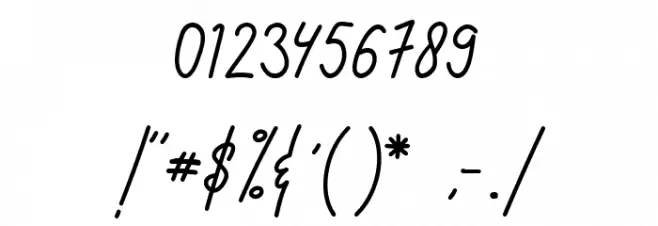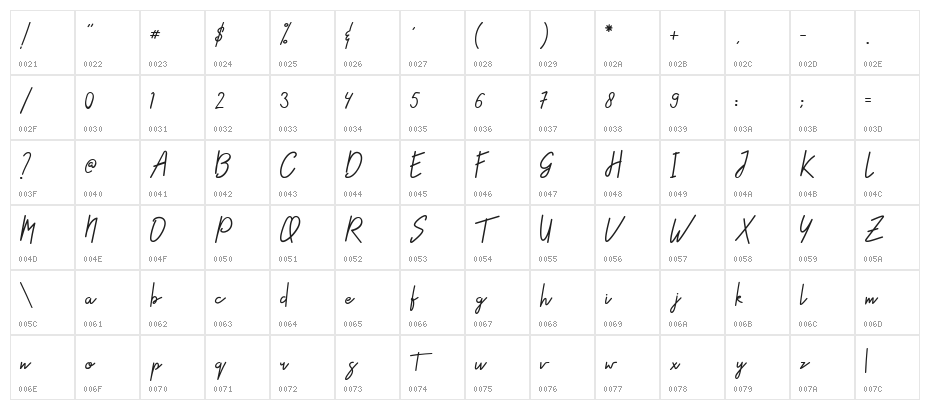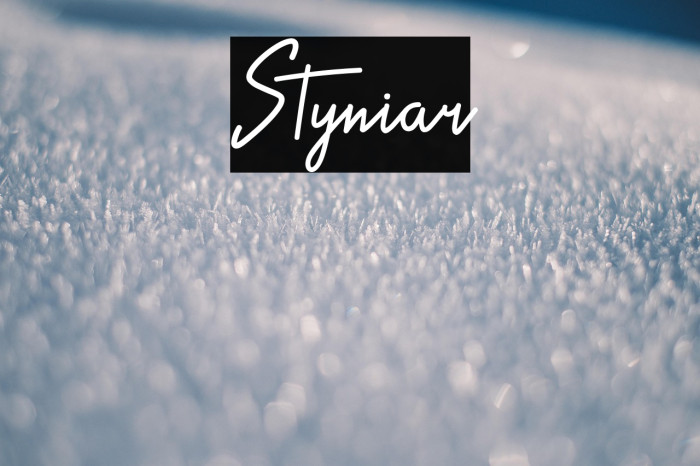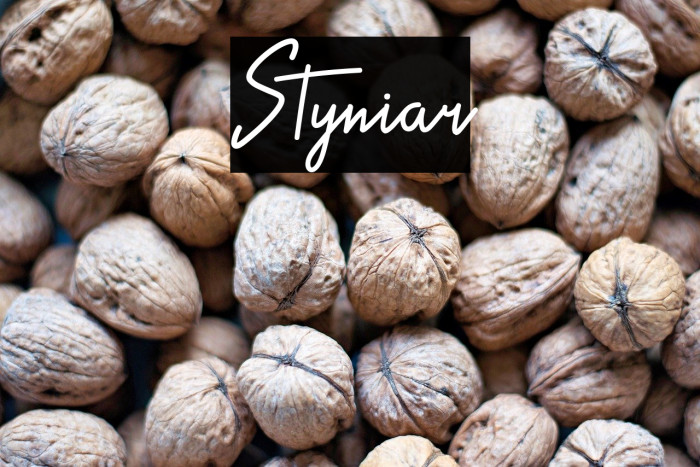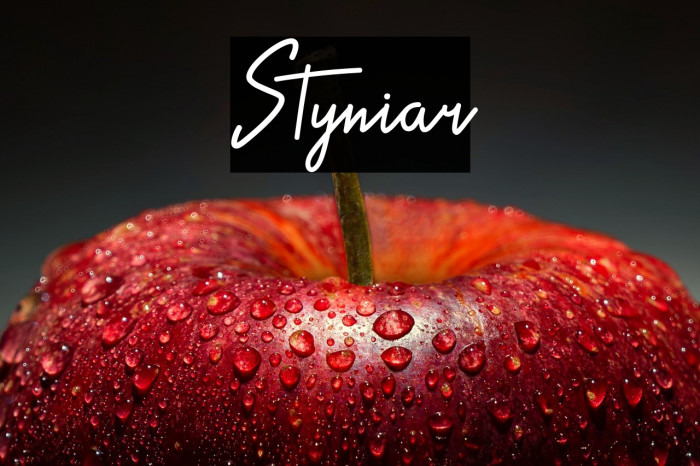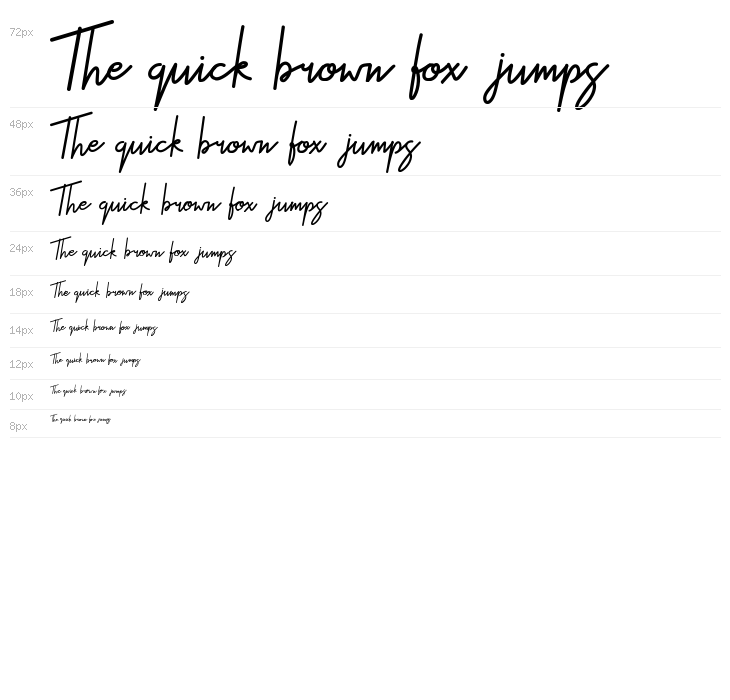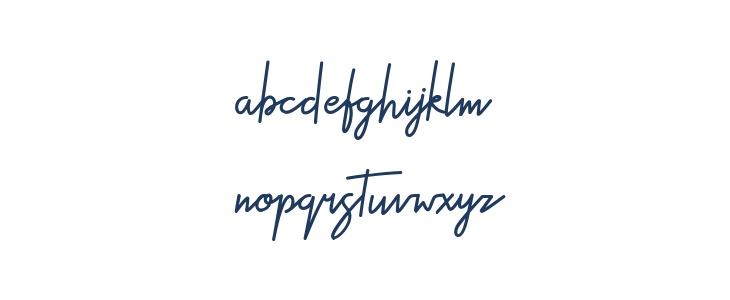
Styniar Font
Styniar Description
This font exhibits a lively and energetic handwritten style, characterized by its fluid and dynamic strokes. The uppercase letters are tall and slightly slanted, giving a sense of motion and spontaneity. The lowercase letters maintain a consistent flow, with smooth curves and a casual appearance. Numbers are clear and legible, matching the playful yet sophisticated style of the alphabet. Special characters are creatively integrated, adding to the font's versatility. Overall, this font conveys a sense of personal touch and creativity, making it suitable for projects that require a friendly and approachable aesthetic.
| Overall Style | Casual, Creative |
| Use Case | Logos, Headlines, Social Media Graphics |
| Proposed Projects | Ideal for greeting cards, personal branding, social media graphics, and creative projects that require a personal touch. |